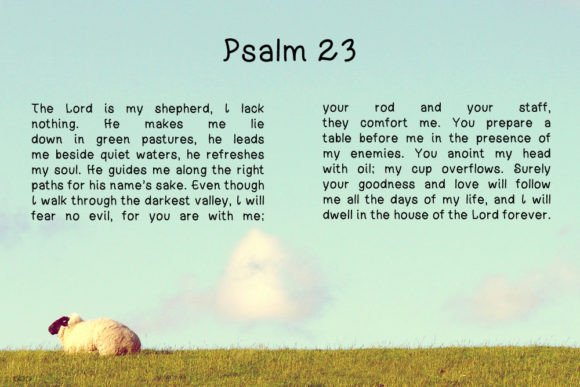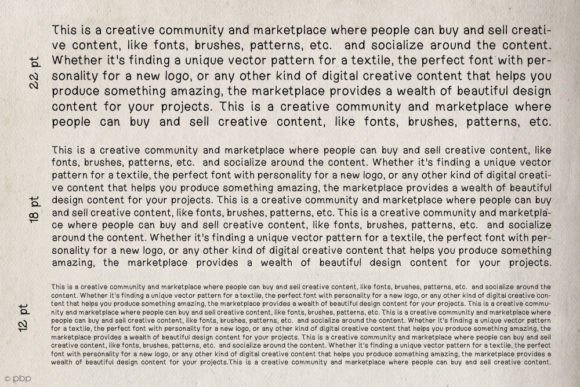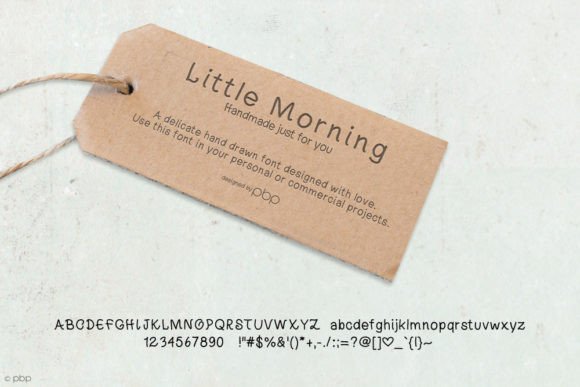
Introduction to Little Morning Font
Do you remember the feeling of scribbling in a journal as a child, the ink bleeding onto the page as your imagination ran wild? That same carefree spirit is captured in the Little Morning Font, a delicate handwritten font that’s perfect for adding a touch of imperfection to your design projects.
As a designer, you know the value of a high-quality font that can elevate your work from good to great. The Little Morning Font is a valuable resource that can add a unique, creative touch to your designs. With its imperfect, unfinished style, it’s ideal for social media posts, greeting cards, t-shirts, mugs, stickers, quotes, totes, and any other design project that needs a personal touch.
Key Features of Little Morning Font
- High-quality design resource with a unique, hand-drawn style, perfect for creative projects.
- Perfect for use in logos, branding materials, and other creative projects where a unique, handwritten style is desired.
Honest Review: Little Morning Font
As a designer, I’m always on the lookout for high-quality design resources to elevate my creative projects. I recently had the chance to try out the Little Morning Font, and I’m excited to share my honest review with you.
- High-quality design: The Little Morning Font boasts a beautiful, elegant design that’s perfect for a wide range of creative projects.
- Limited character set: I found that the font’s character set is limited, which may not be suitable for projects that require a wide range of characters.
- Lack of bold and italic styles: While the font is beautiful, I wish it came with bold and italic styles to add more versatility to my designs.
Overall, the Little Morning Font is a great addition to any designer’s toolkit. While it may have some limitations, its high-quality design and free download make it an excellent resource for creative projects. I’d definitely recommend it to fellow designers looking for a beautiful, elegant font to elevate their work.
Tips for Getting the Most Out of Little Morning Font
Use the font with a transparent background to create a sleek and modern design. Experiment with different font sizes and styles to add depth and interest to your design. Combine the font with other design elements, such as images or graphics, to create a unique and creative project.
The Little Morning Font is ideal for creative projects such as typography-based designs, logos, graphics, presentations, reports, and documents. You can also use the font for personal or commercial use, including branding, advertising, and marketing materials.
Yes, the Little Morning Font is suitable for both digital and print projects. Its high-quality design and transparent background make it an excellent choice for a wide range of creative projects, including logos, graphics, and typography.